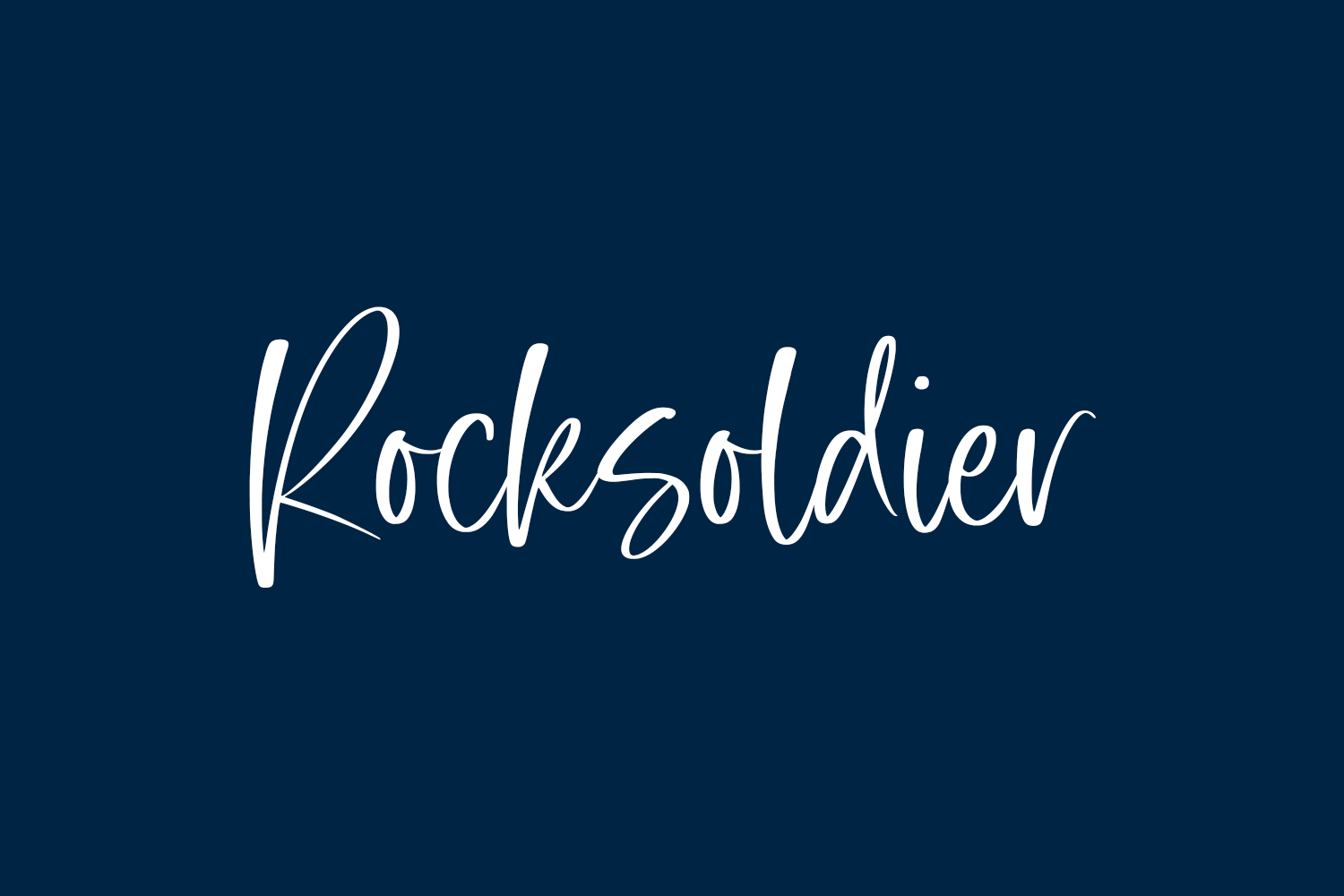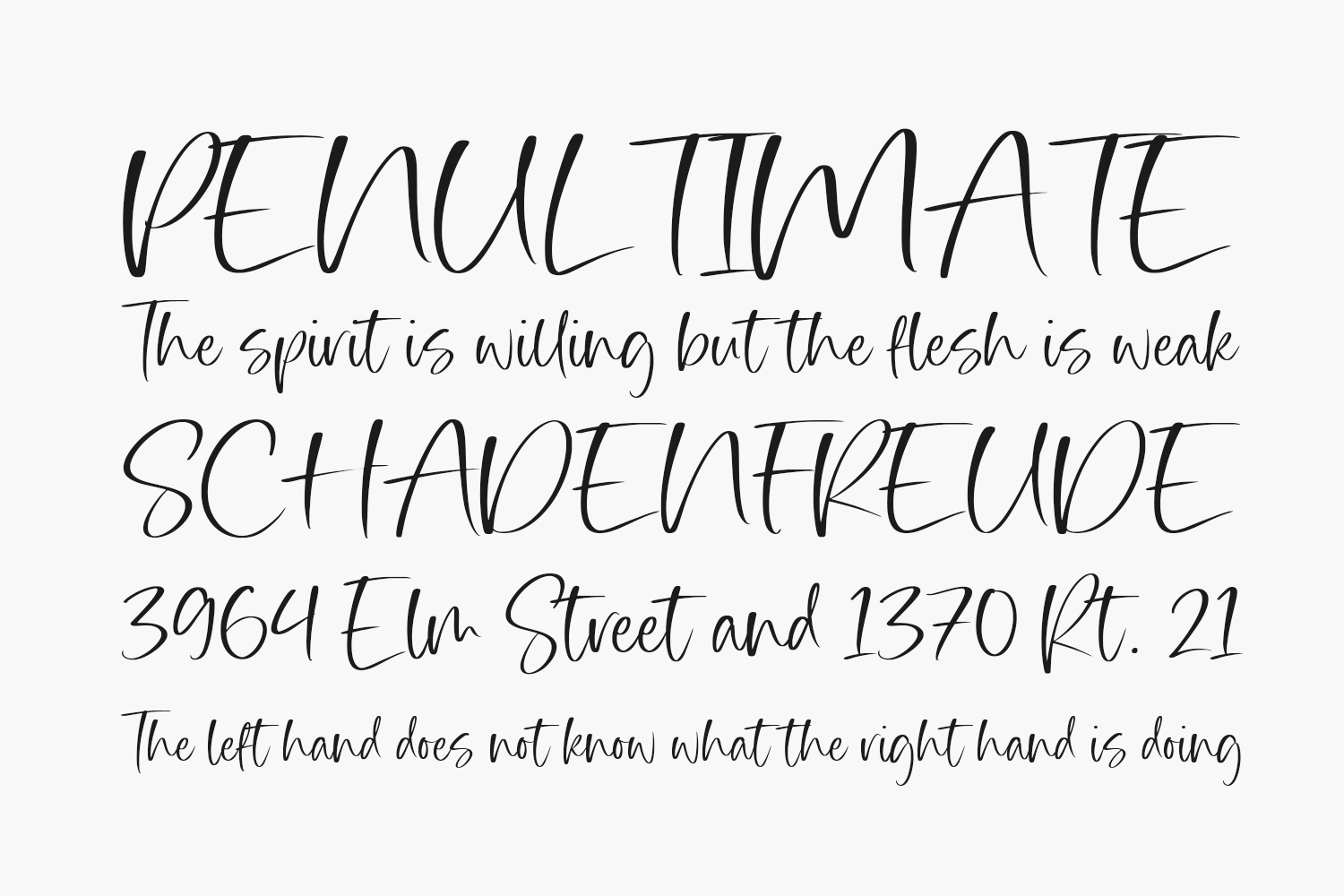
Discover Rocksoldier Free Font, a stunning handwritten font crafted to capture hearts. Combining classic calligraphic elements with a modern twist, it exudes timeless elegance and freshness. Fall in love with Rocksoldier and elevate your projects to new heights of sophistication. Download the font for free if you need it for personal use or purchase the full version for commercial use.
Designed by Timur Type